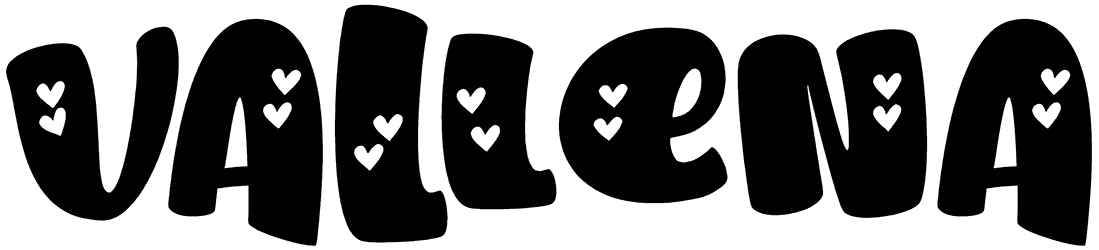
Vallena Font
Your design gets to convey a lovely and sweet vibe to your followers better with cute lettering like this heart font. The playful and bulky mood of this adorable Valentine’s font is supposed to make your design level up even without lowercase letters. Create a party flyer or anything else with the Vallena font and reveal your unique taste.